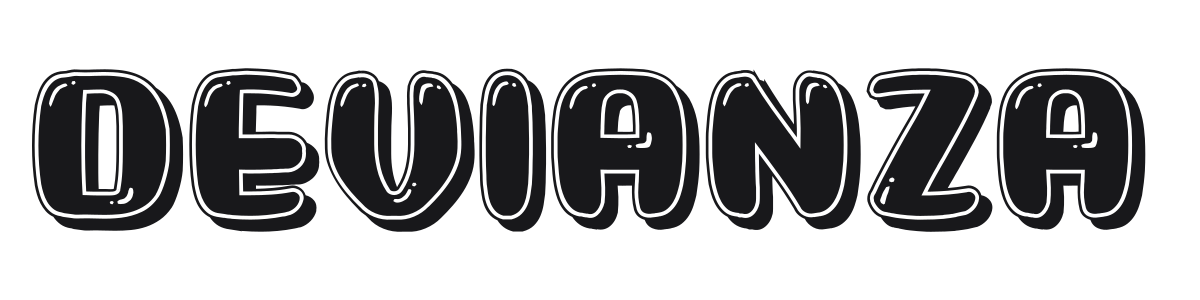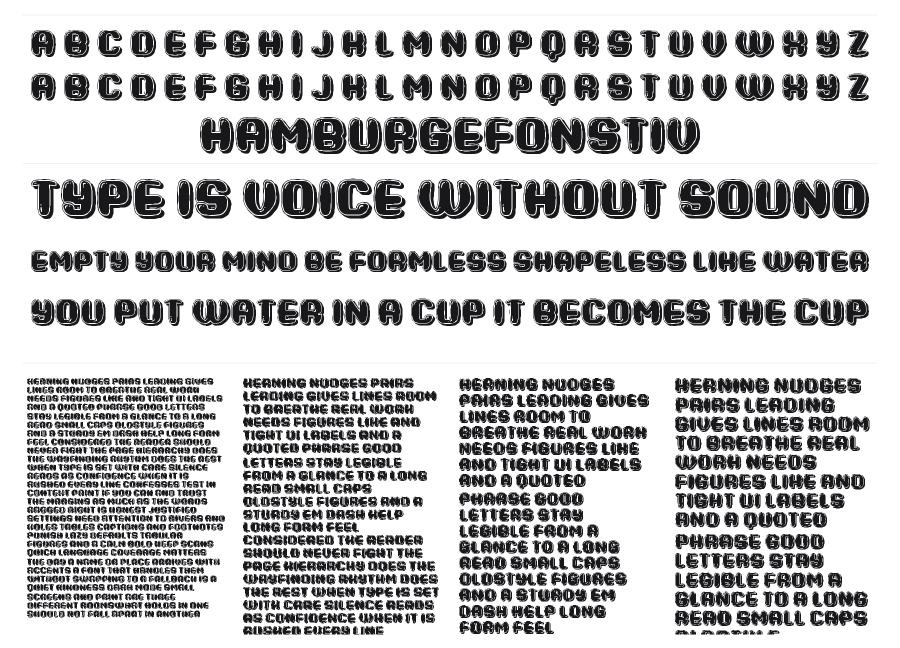
Devianza
Devianza is a chunky rounded display font with an inflated, bubbly construction and built-in inline highlight and shadow effects. The combination gives each letter a comic-book embossed quality that reads immediately at large sizes. It suits branding and packaging where energy and personality are the point.